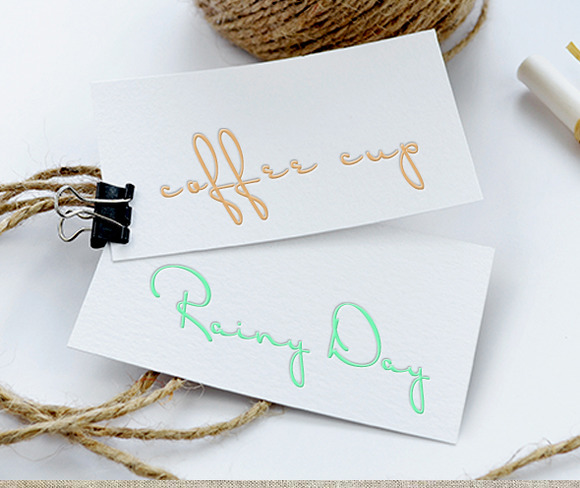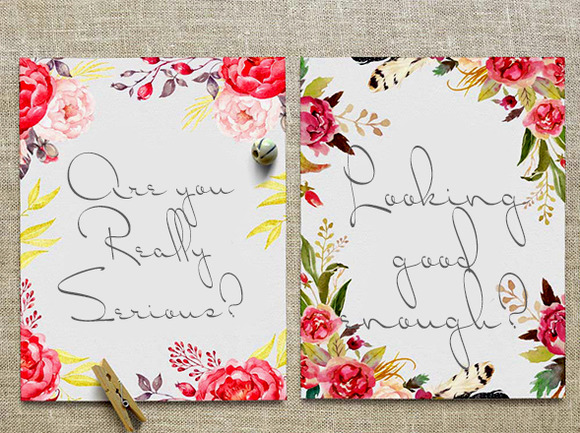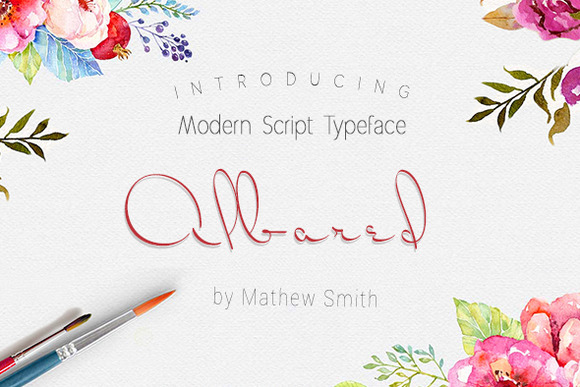
Albared Script
Albared Script Font
Albared is a signature font with a handwritten script style that makes this font looks elegant, natural, stylish and perfect for any projects that need signature taste and impeccable design. Can be used for various purposes like headings, signatures, logos, wedding invitations, t-shirts, flyers etc.